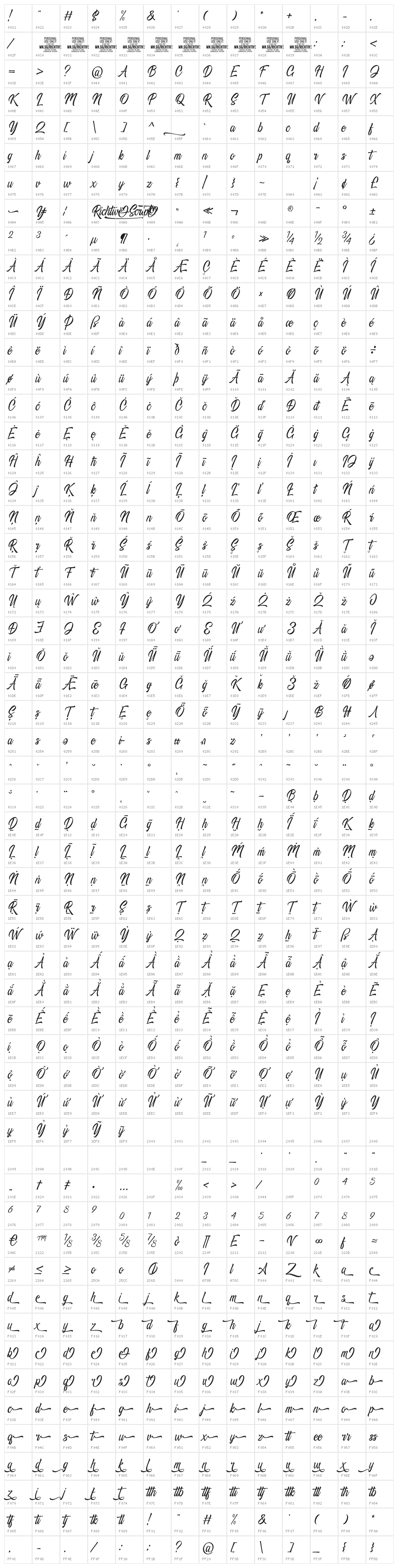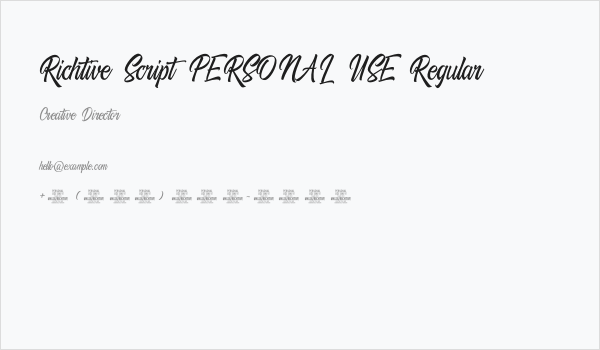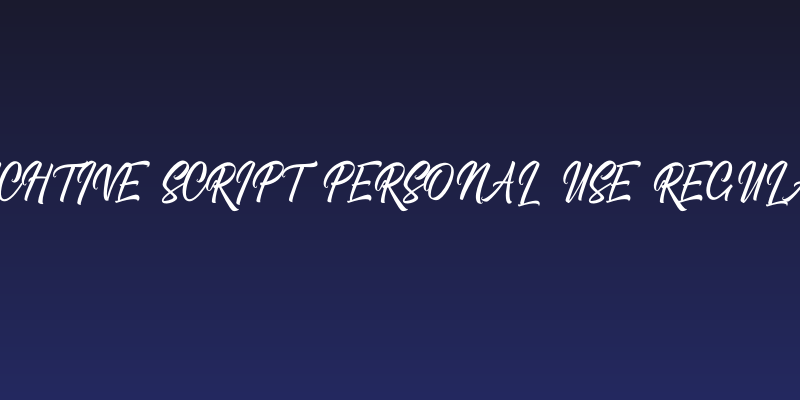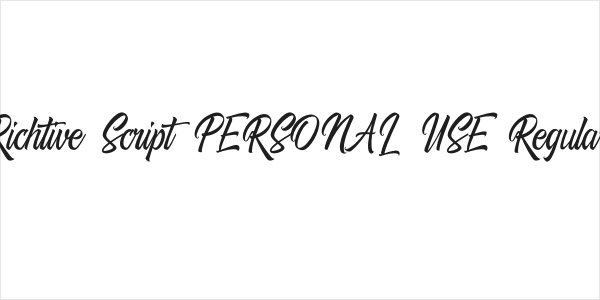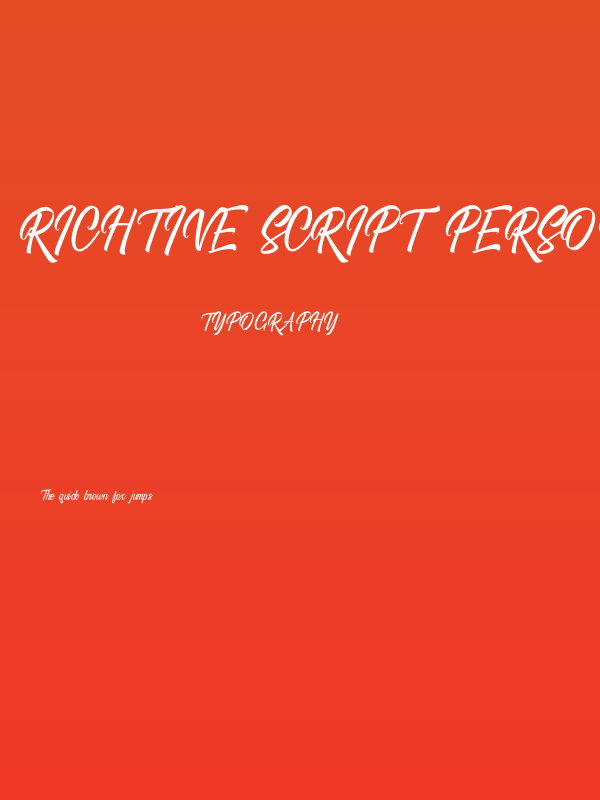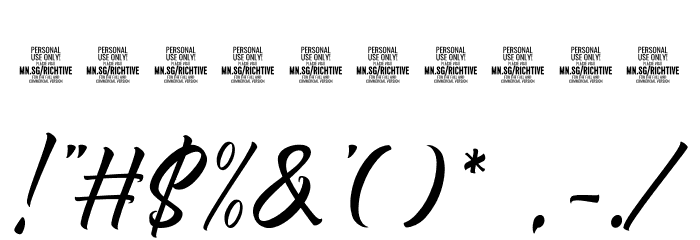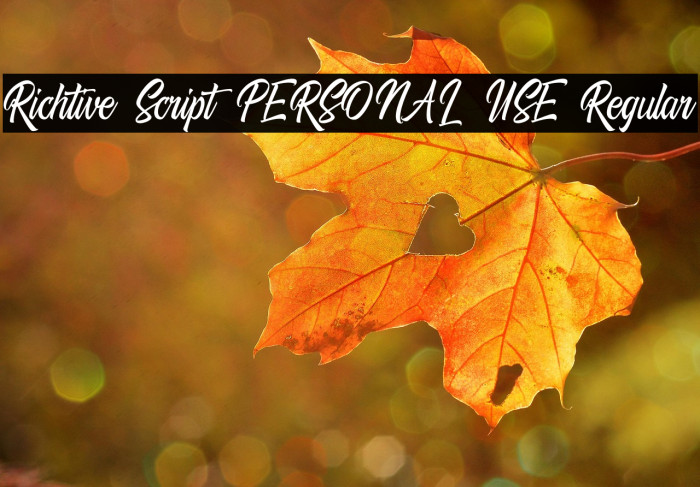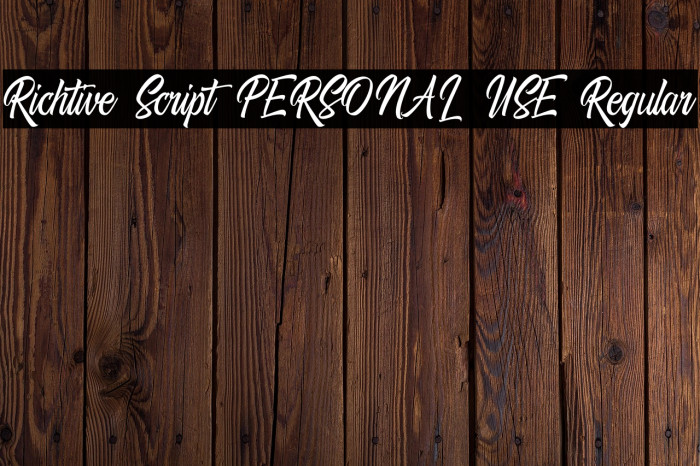
Richtive Script PERSONAL USE Regular Font
Richtive Script PERSONAL USE Regular Description
This script font exudes elegance and fluidity, characterized by its smooth, flowing strokes and cursive style. The uppercase letters are bold and slightly slanted, while the lowercase letters maintain a consistent rhythm and balance. The font features a natural handwritten appearance, with each character seamlessly connecting to the next, creating a harmonious and cohesive look. The special characters are designed with the same attention to detail, ensuring they blend well with the overall aesthetic. This font is perfect for projects that require a personal touch, such as invitations, greeting cards, and branding materials.
| Overall Style | Elegant, Handwritten |
| Use Case | Logos, Invitations, Personal Branding |
| Proposed Projects | Ideal for wedding invitations, personal branding, greeting cards, and elegant logos. |